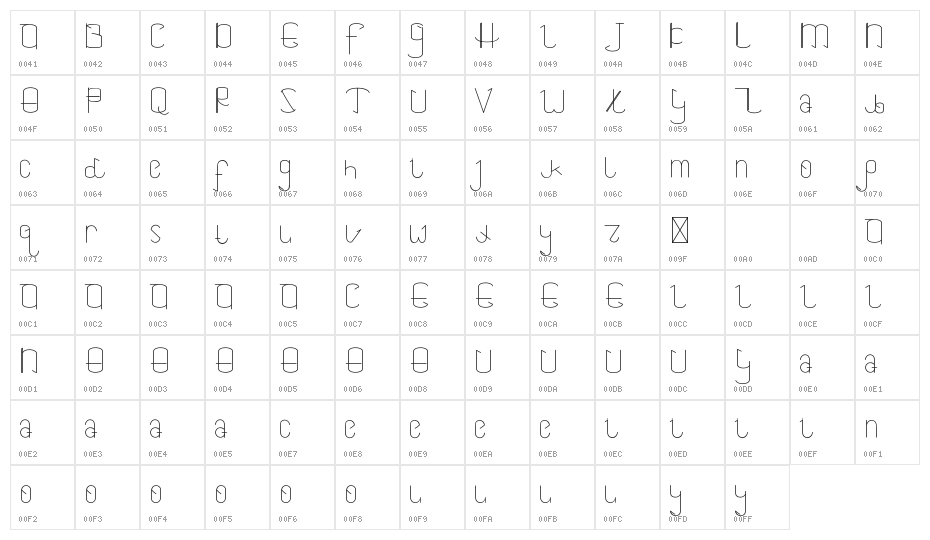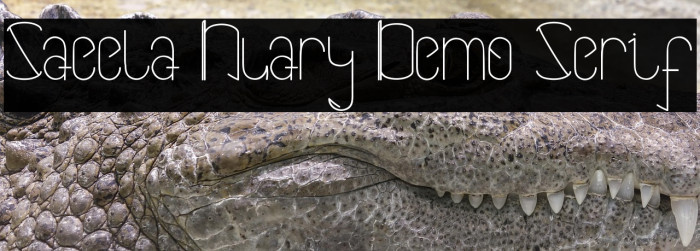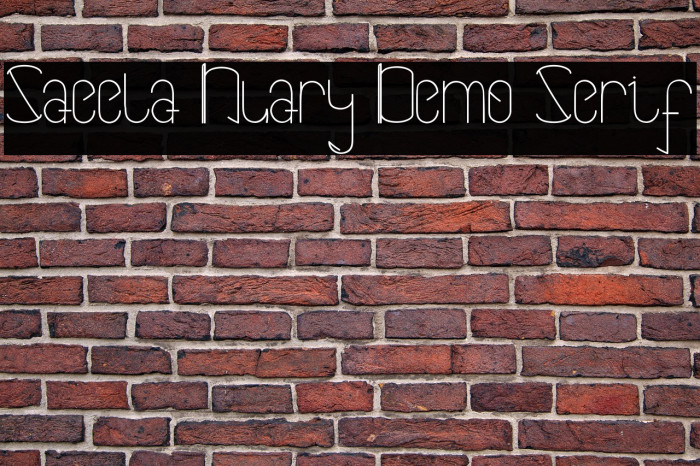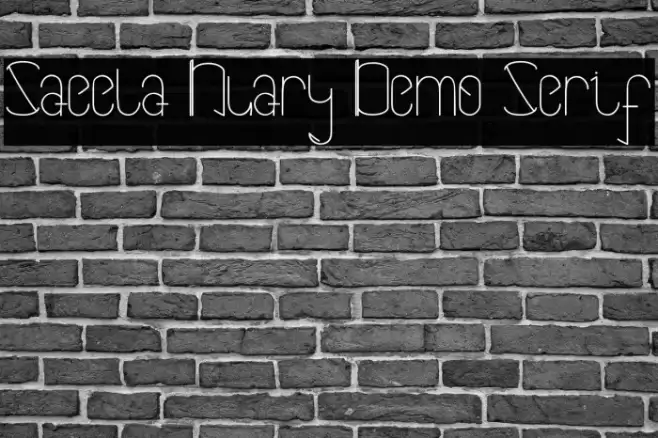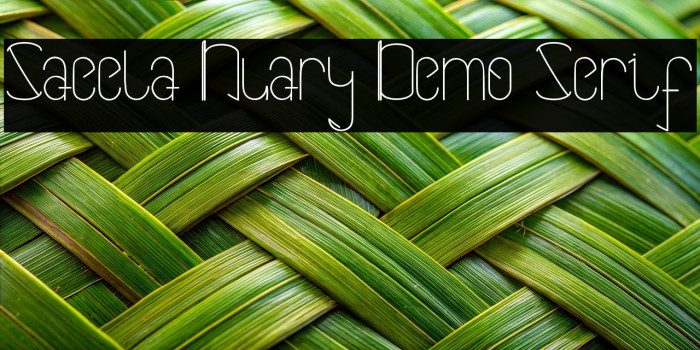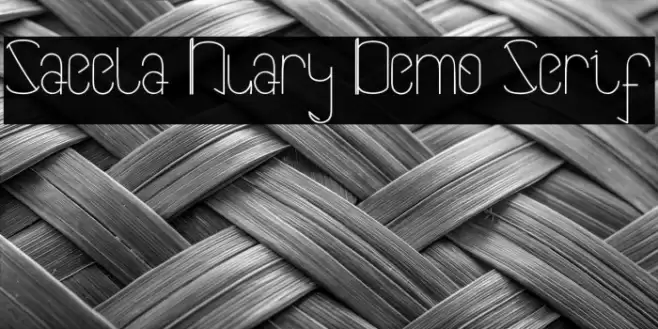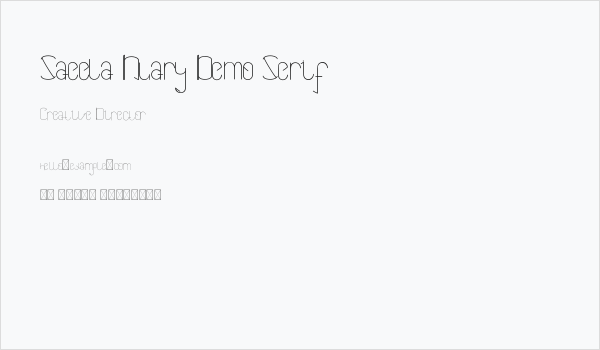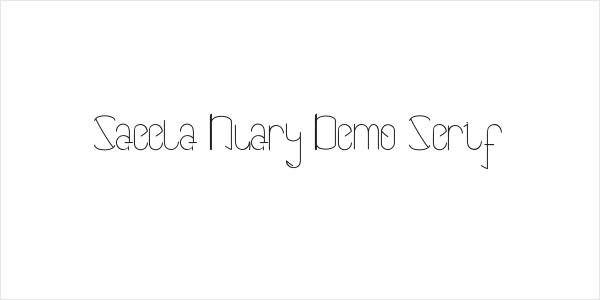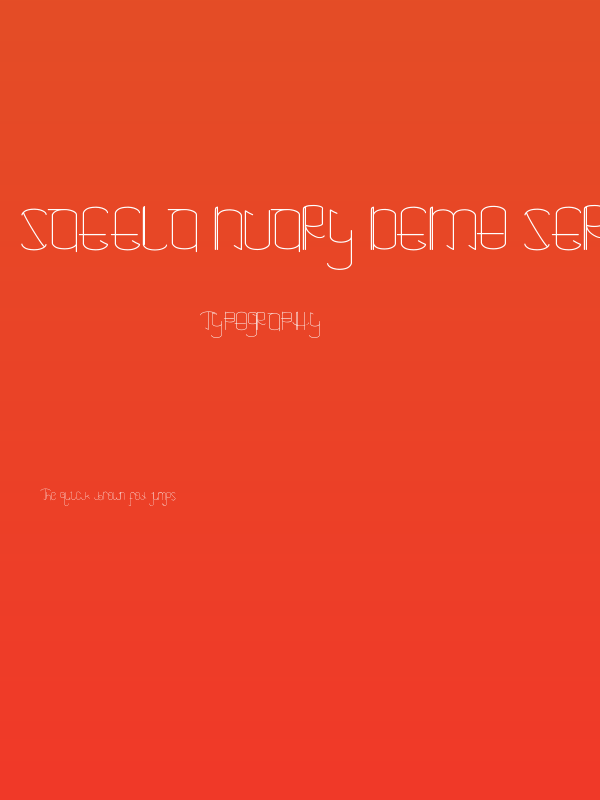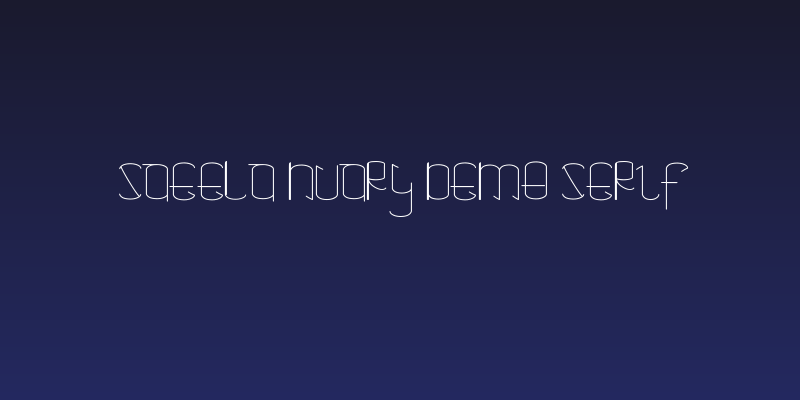
Saeela Nuary Demo Serif Font
Saeela Nuary Demo Serif Description
This font features a unique and modern design with a geometric and artistic flair. The characters are constructed with thin, continuous lines that create an elegant and sophisticated appearance. The uppercase and lowercase letters maintain a consistent style, with some characters incorporating subtle curves and angles that add to the overall aesthetic. The numerals and special characters are designed to complement the alphabet, maintaining the same thin line structure. This font stands out due to its minimalistic yet intricate design, making it suitable for creative and contemporary projects.
| Proposed Projects | Ideal for modern branding, artistic posters, fashion magazines, and creative digital media. |